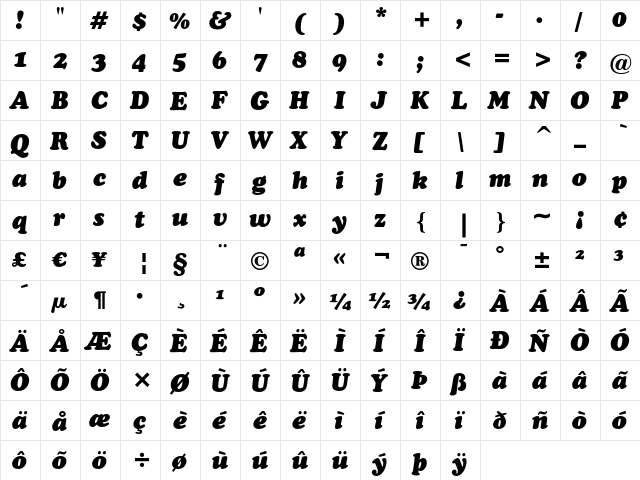
Bitstream Cooper Black Italic
Design Context for Bitstream Cooper Typeface
Bitstream Cooper takes a measured approach to typography — its balanced proportions and neutral character make it a reliable workhorse for both digital and print work. Its italic angle brings a sense of urgency and motion to the letterforms.